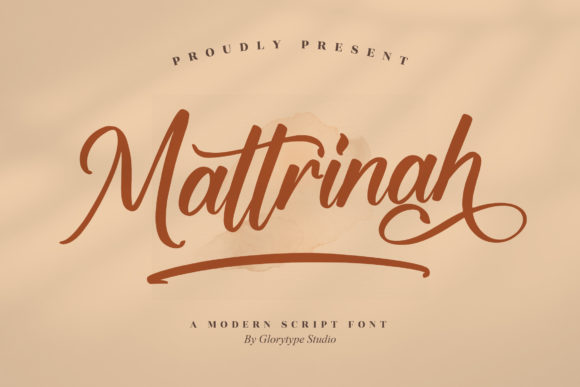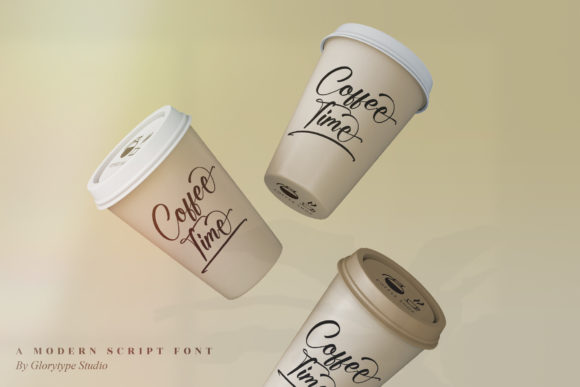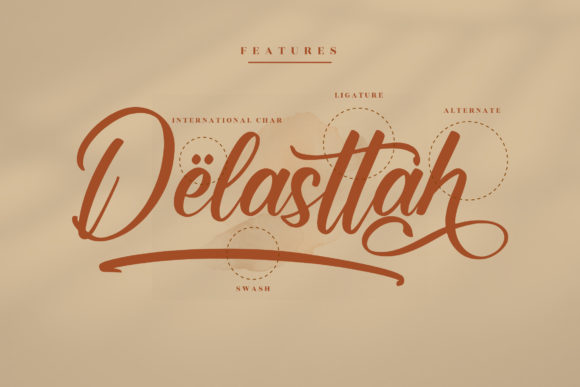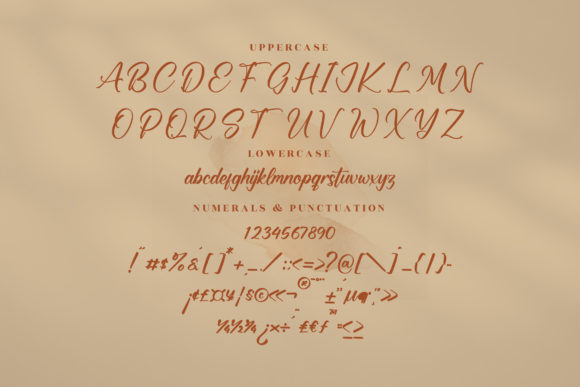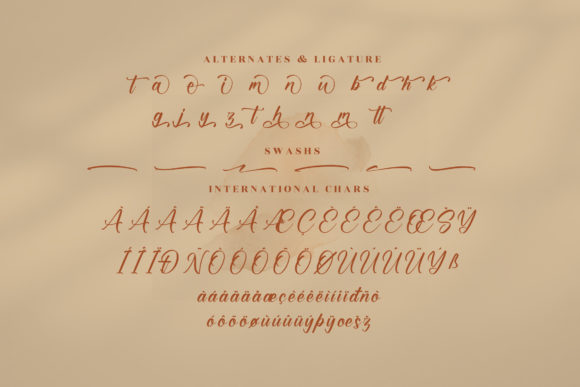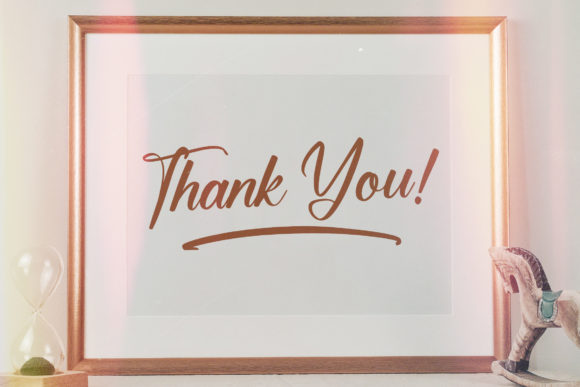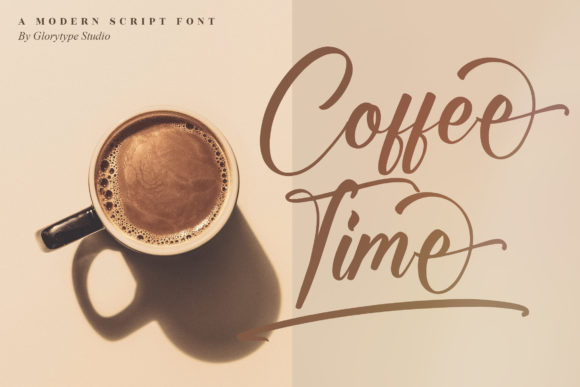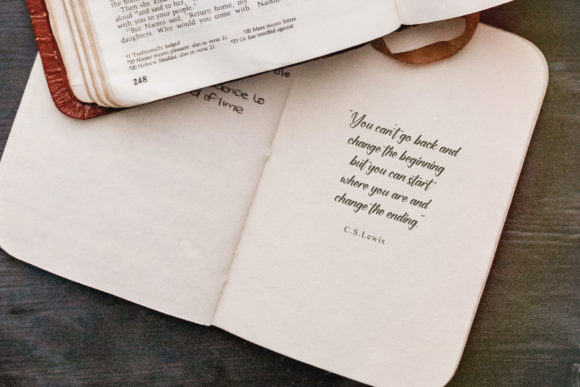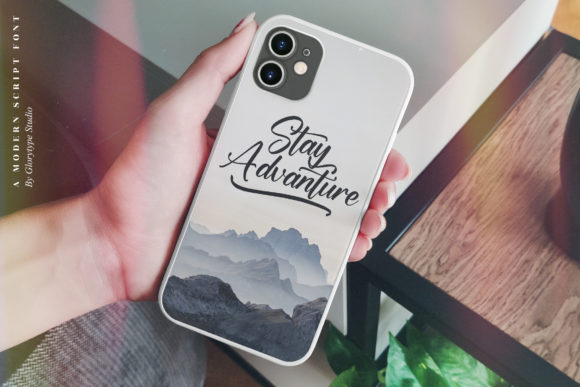
Mattrinah Font
About Mattrinah Font
Mattrinah is a trendy looking and relaxed script font. It is PUA encoded which means you can access all of the glyphs and swashes with ease! Add it confidently to your projects, and you will love the results.